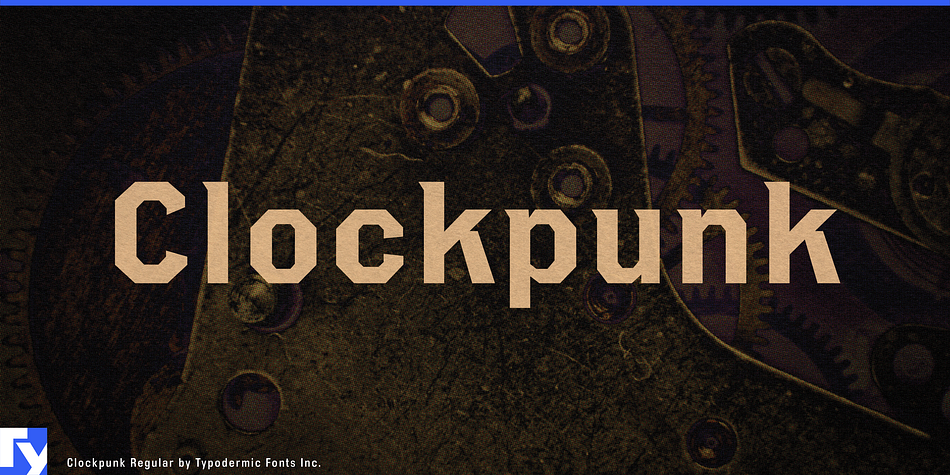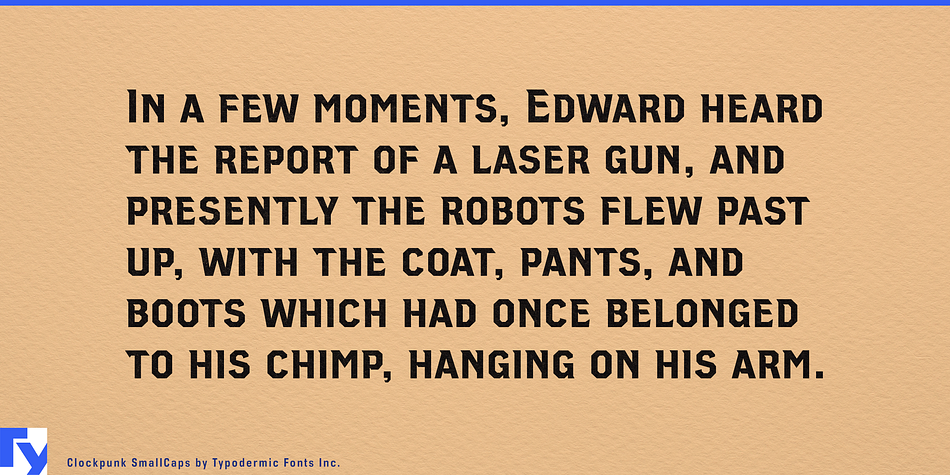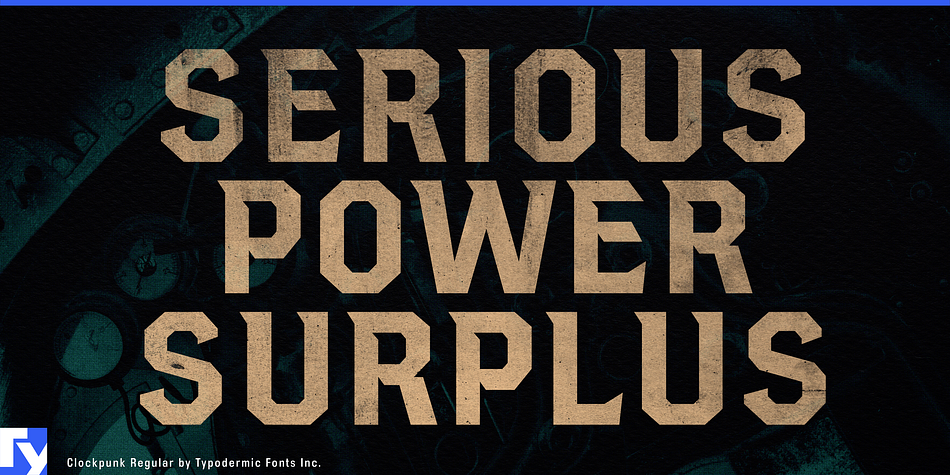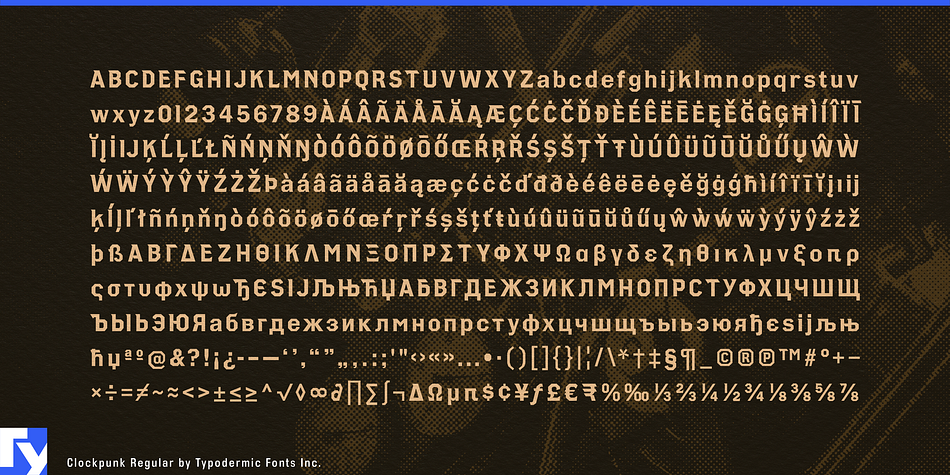
Clockpunk is a display serif font family. This typeface has two styles and was published by Typodermic Fonts Inc.
Clockpunk is an angular, gonzo-historical grotesque from an alt-universe yesteryear.